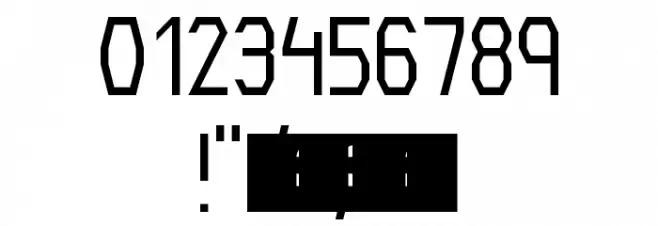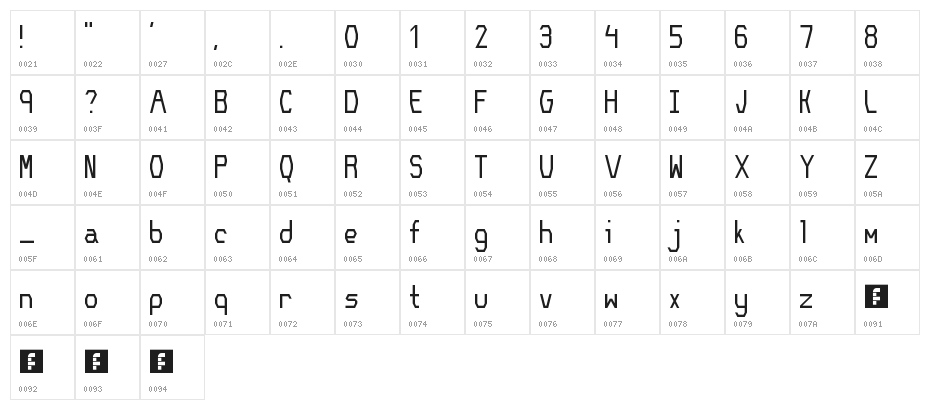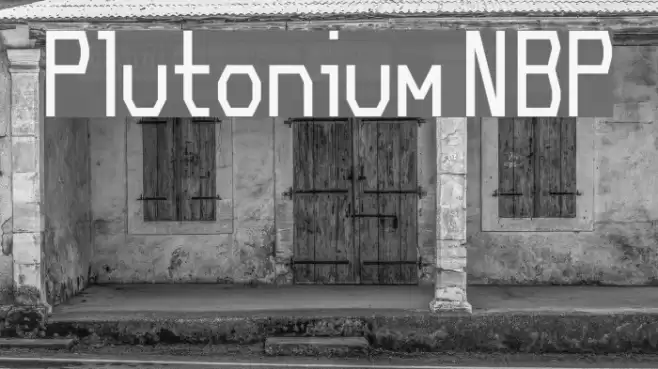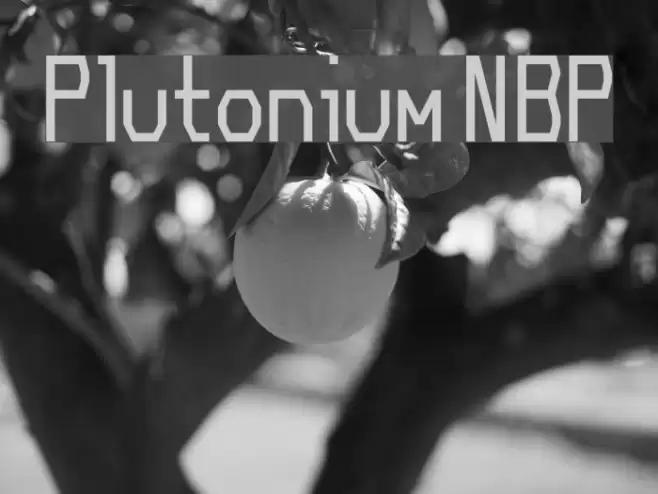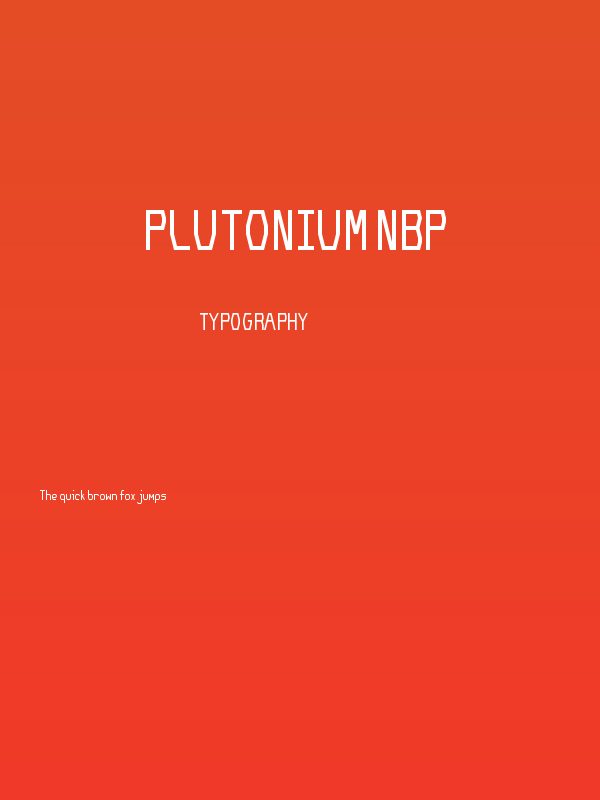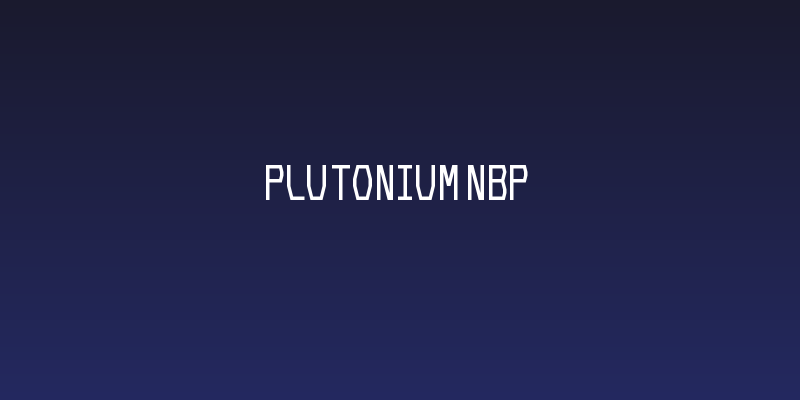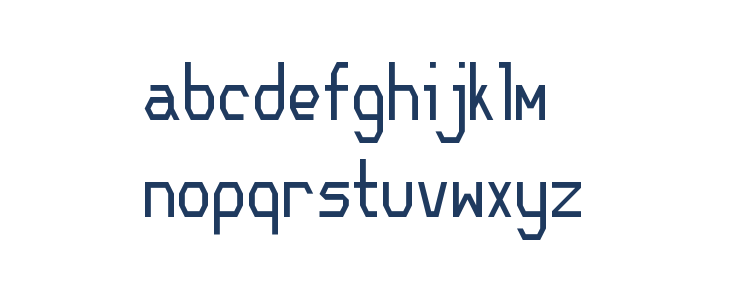
Plutonium NBP Font
Plutonium NBP Description
This font features a geometric and angular design, characterized by its sharp edges and clean lines. The uppercase letters are bold and structured, giving a sense of strength and modernity. The lowercase letters maintain the same angular style, providing consistency throughout the typeface. Numbers and special characters are designed with the same attention to geometric precision, making them stand out with clarity. The overall appearance is futuristic and technical, suitable for projects that require a modern and edgy look.